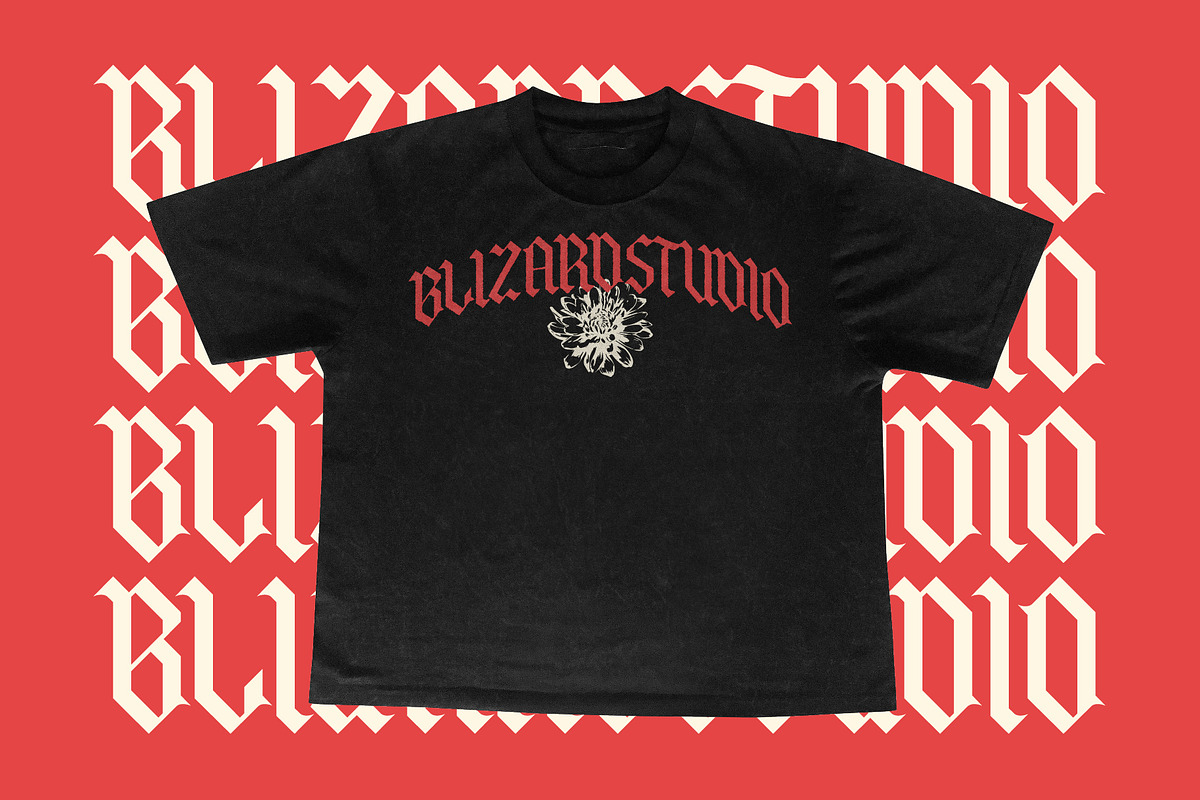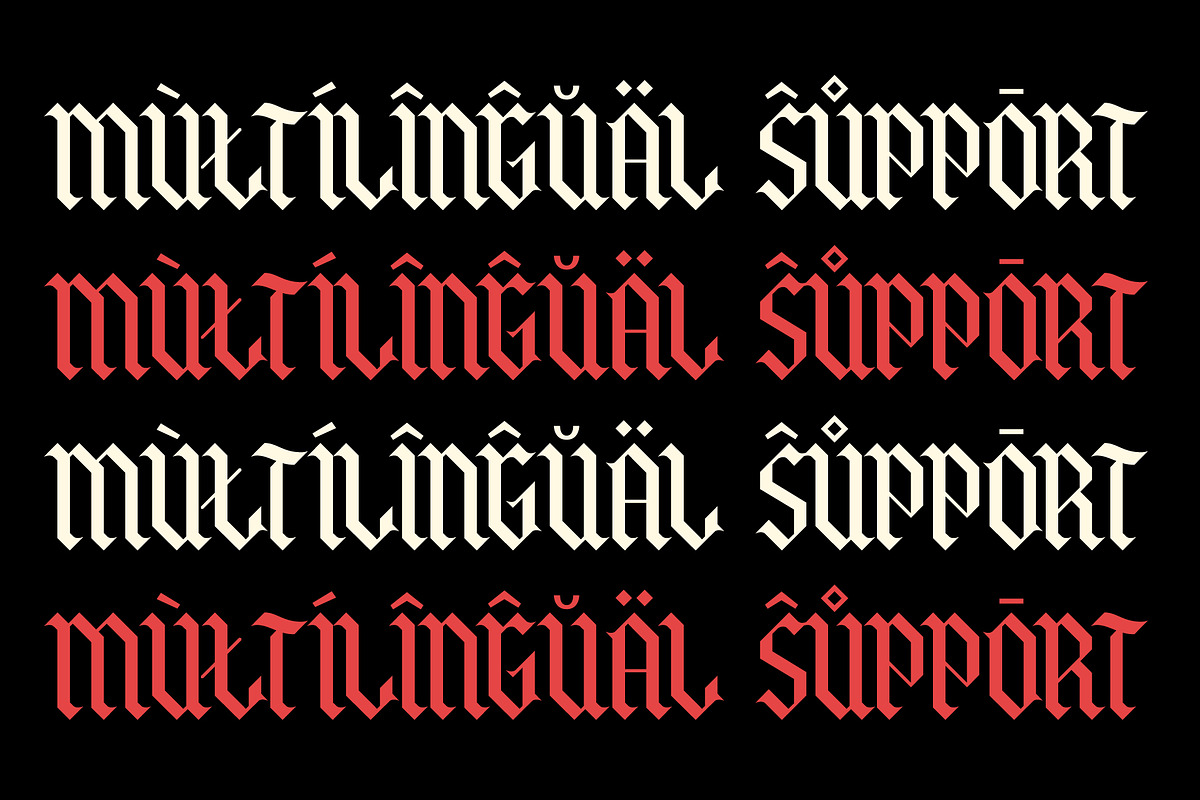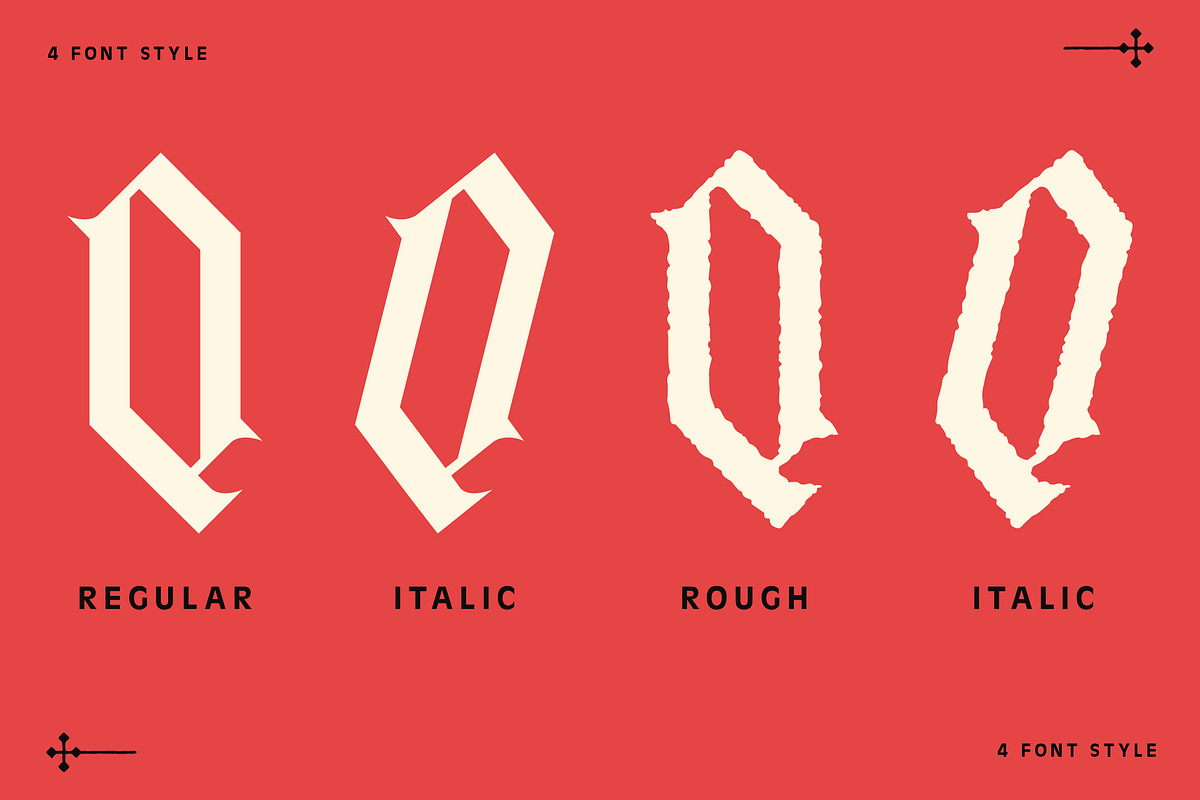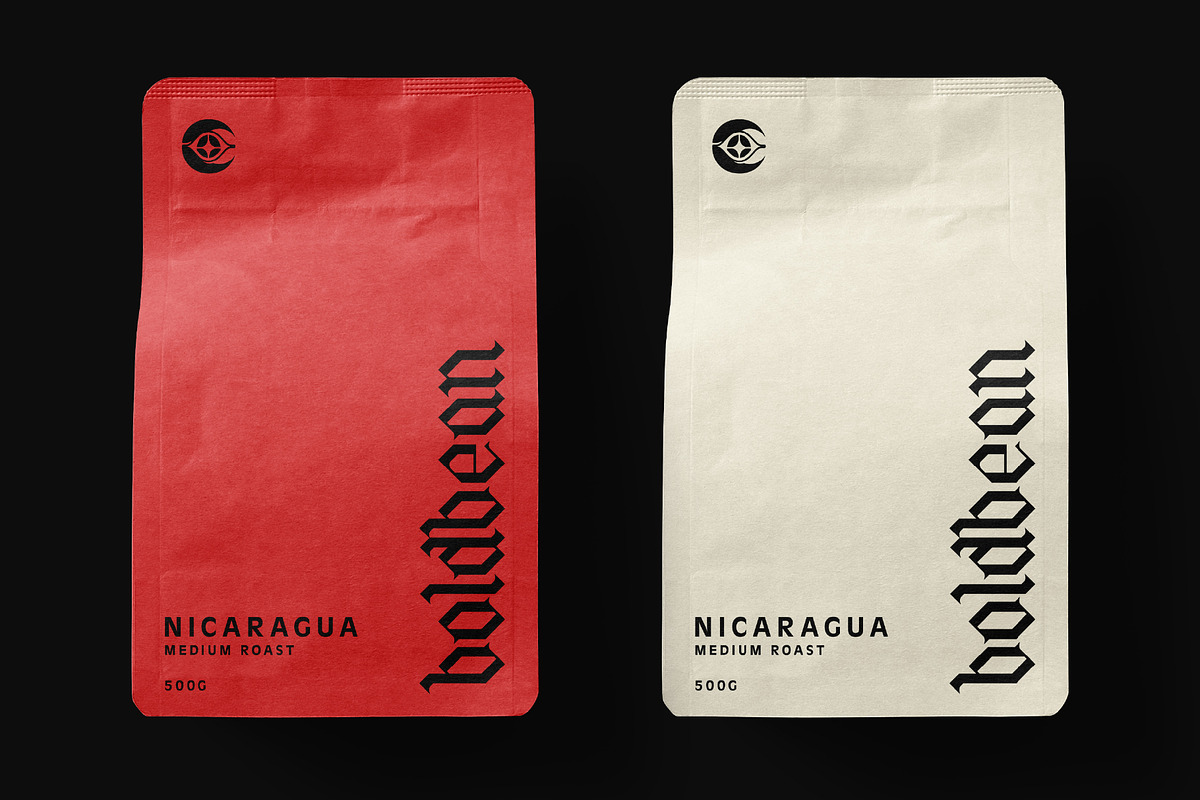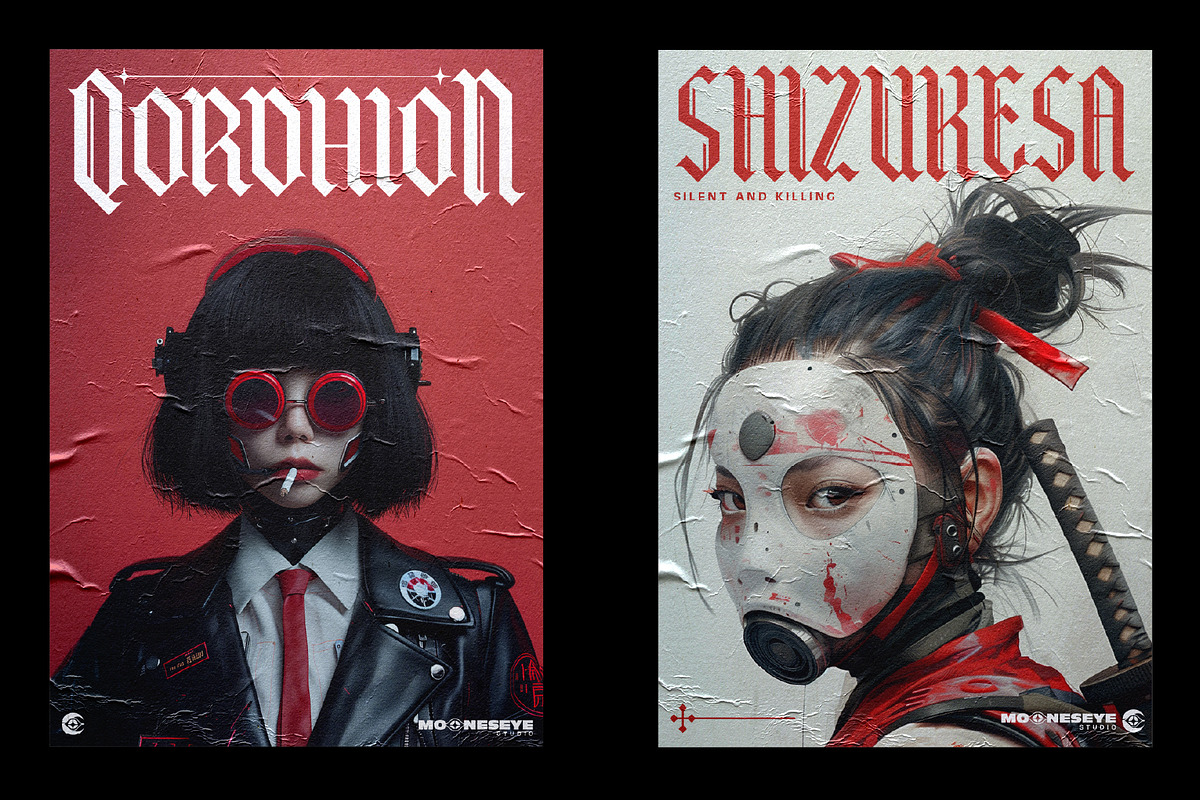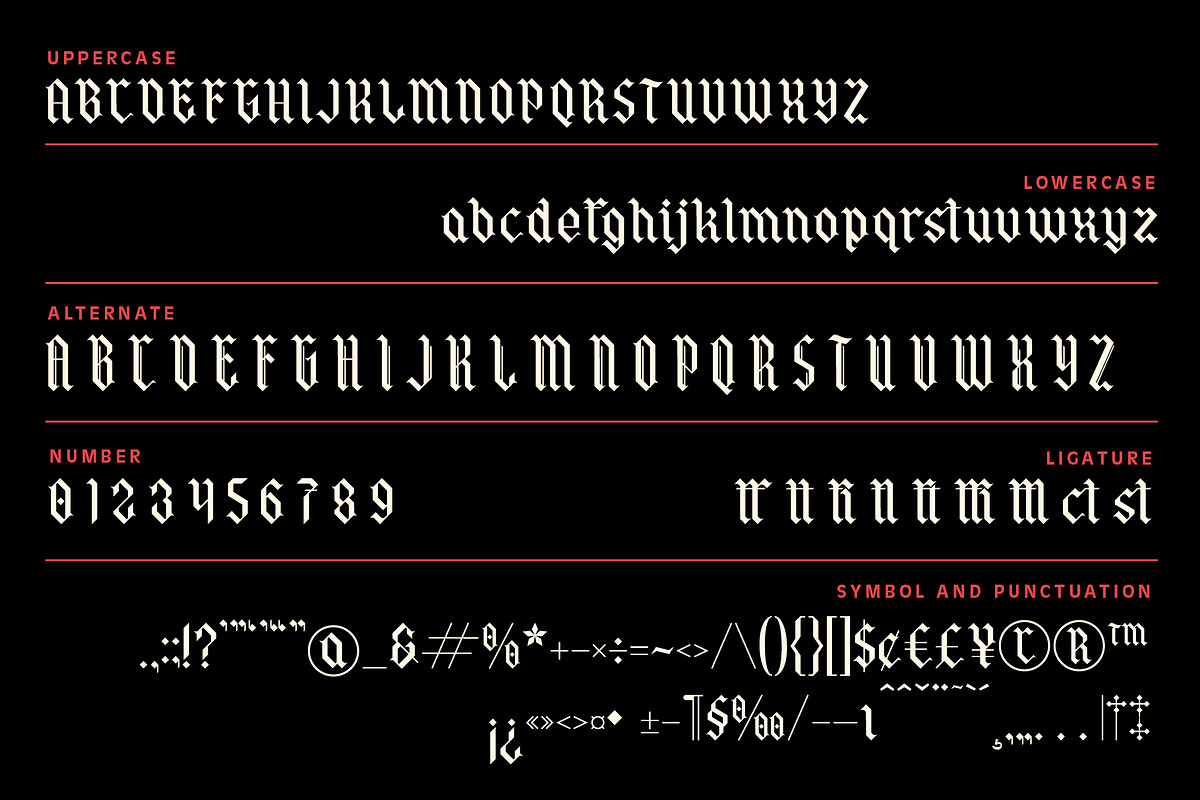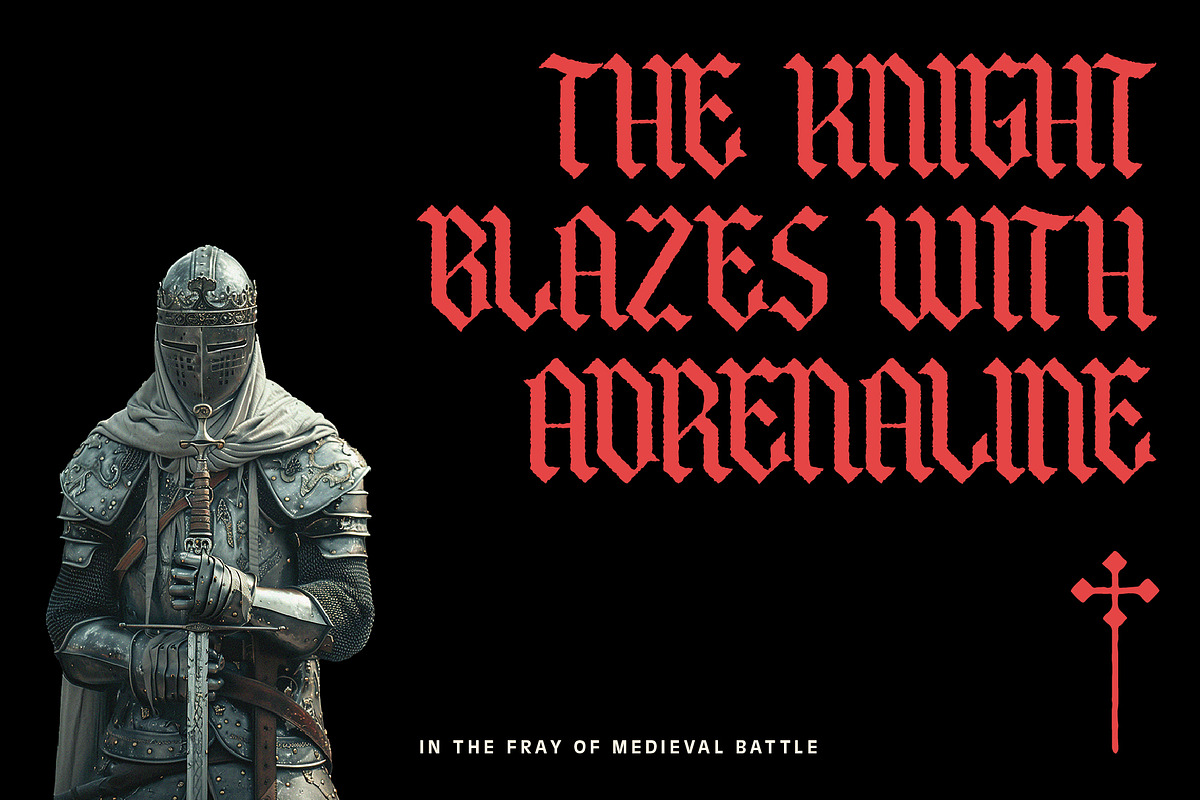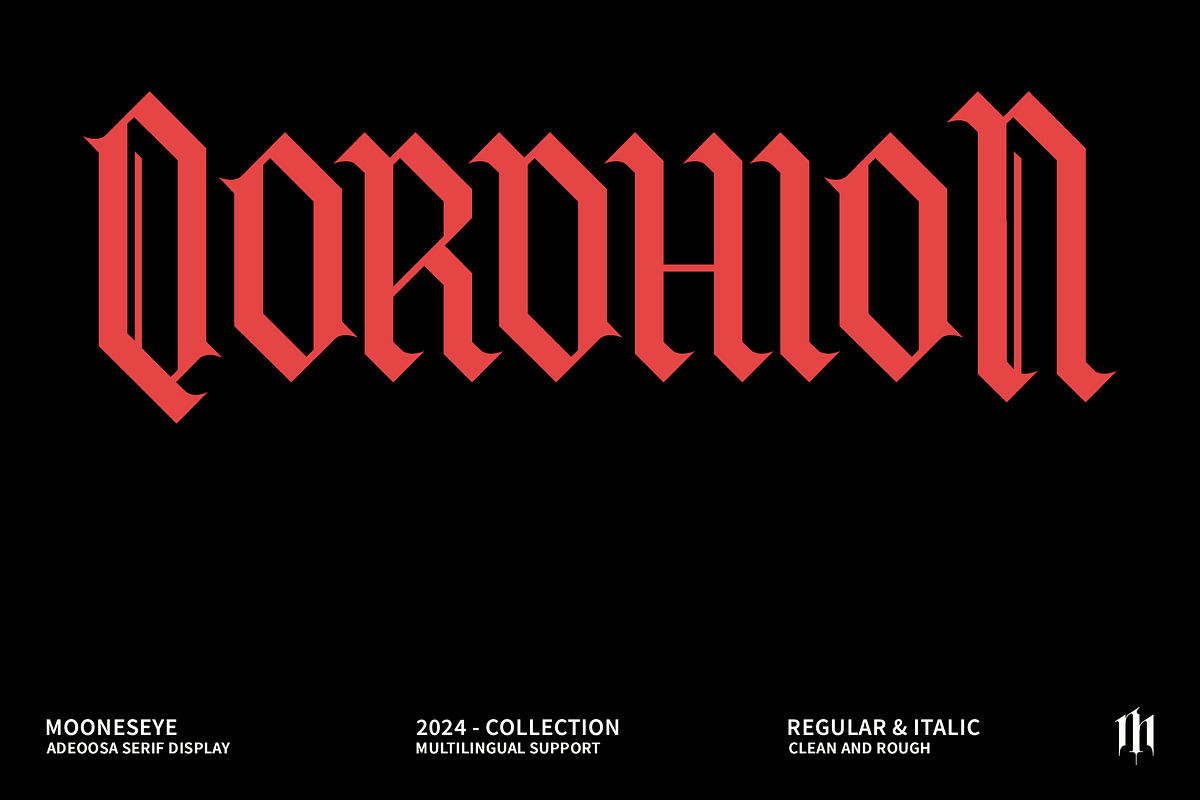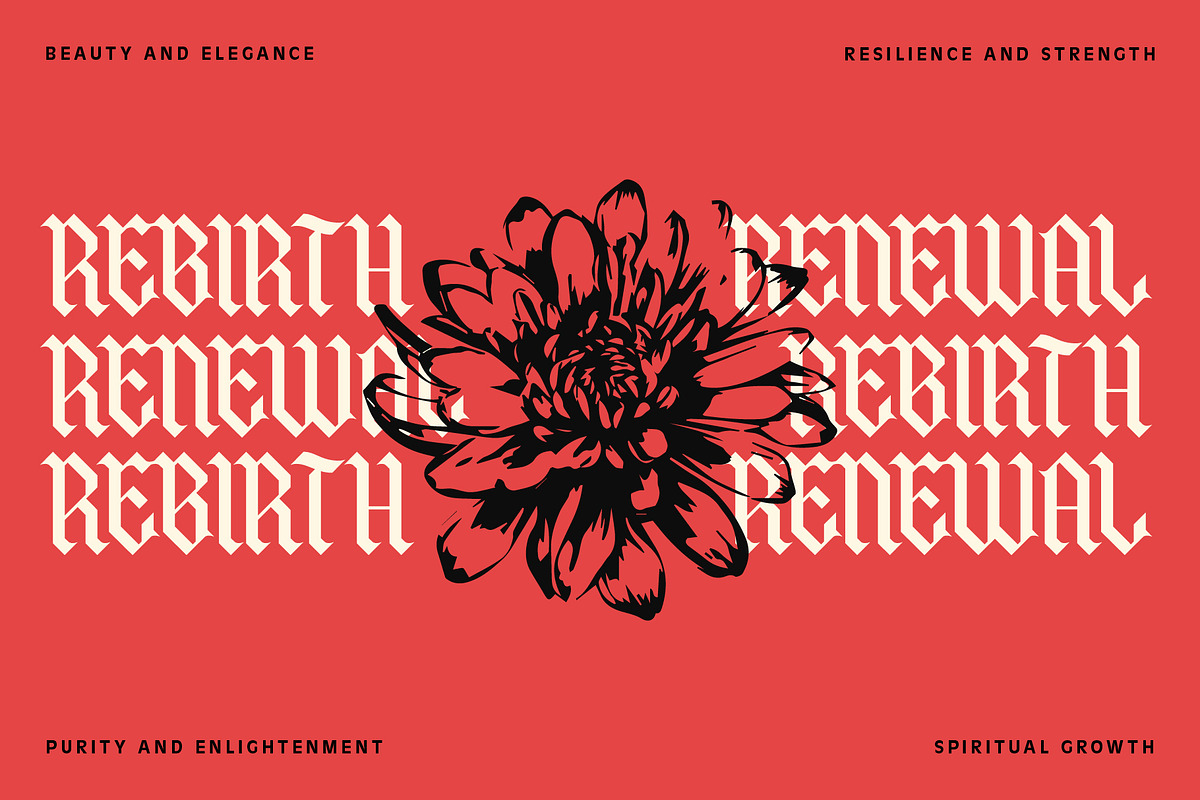
Qordhion - Blackletter Font
Unleash the raw power of the past with Qordhion, a commanding blackletter font that blends historical grandeur with modern versatility. Inspired by classic gothic scripts, Qordhion offers a robust and authoritative presence perfect for projects demanding a bold, impactful statement. Its intricate details and sharp edges evoke a sense of medieval nobility and timeless craftsmanship.
Qordhion features a comprehensive character set, including both uppercase and lowercase letters, alternates, numbers, and a wide array of symbols and punctuation. Designed with multilingual support, it's ready to bring its dramatic flair to a global audience. Whether you're crafting powerful headlines, designing captivating logos, or adding a touch of ancient mystique to your branding, Qordhion provides both "Clean and Rough" styles, along with Regular and Italic variants, giving you the ultimate flexibility to achieve your desired aesthetic. Elevate your designs with the strength and elegance of Qordhion Blackletter.